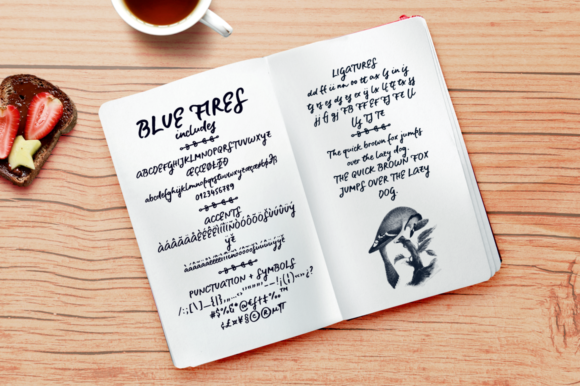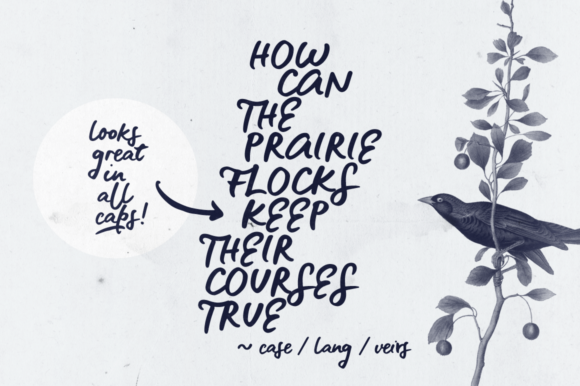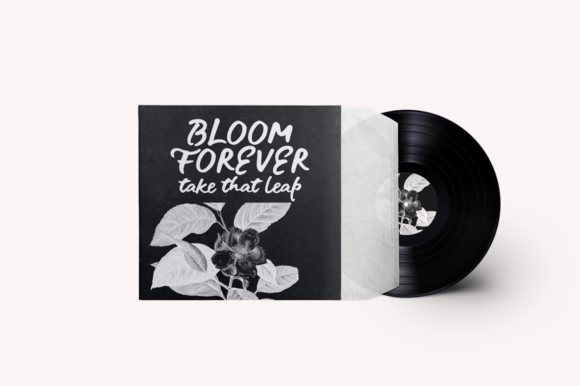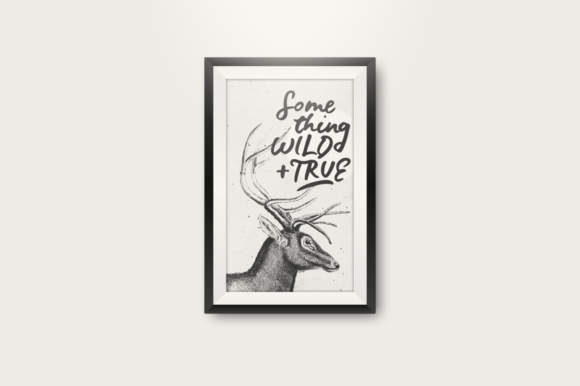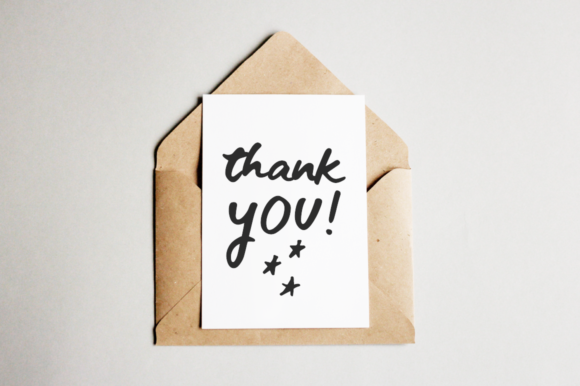
About Blue Fires Font
Blue Fires is a quick and easy handwritten font, with ligatures and bonus swashes, circles, arrows and ornaments.
Blue Fires can be used for quotes, logos, packaging, merchandise. It is a versatile font that looks great in both short bursts and longer texts, in lower case and all caps.